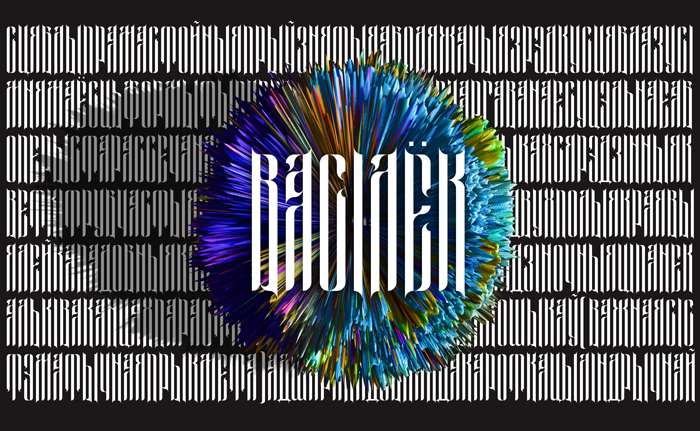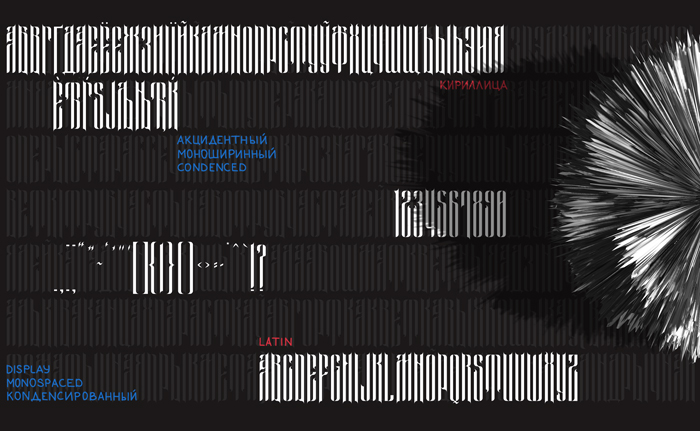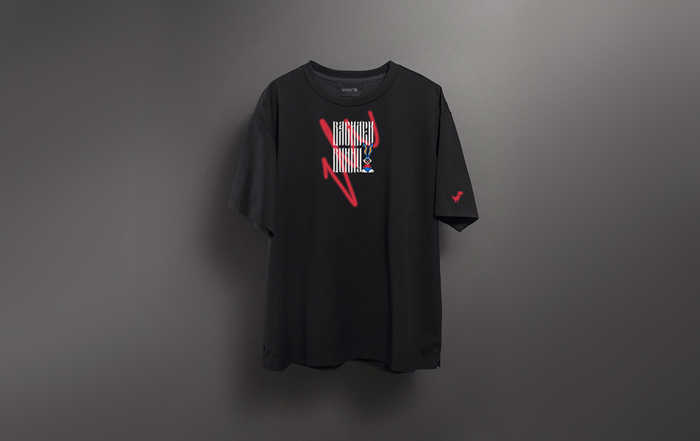
Grat font, I like it a lot! If you don't mind and it seems fine to you, I would recommend that you change the bottom of 2 and the top of 5 and 7 making them more square. That would help differentiate them from S and Z. Congrats on the TP.